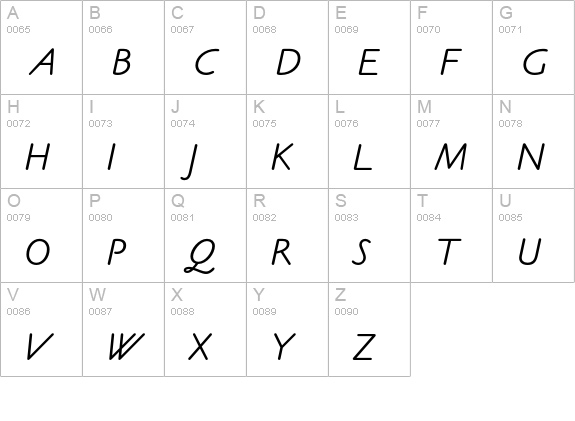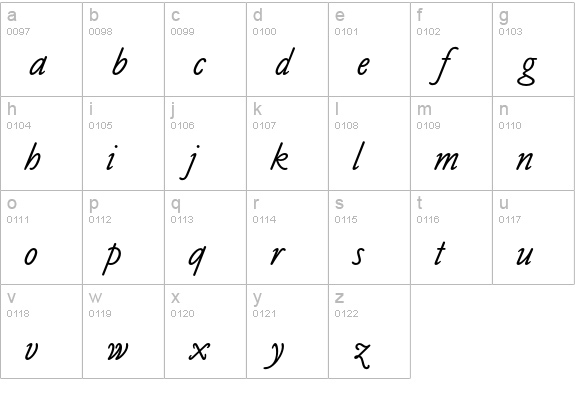
OPTICookeSans-Italic Font Details
OPTICookeSans-Italic is a distinctive, italic variant in the OPTICookeSans typeface family \xE2\x80\x94 well suited to design and typography projects.
OPTICookeSans-Italic is a modern and sleek font that exudes sophistication and elegance. The italicized style adds a touch of flair and sophistication to any design project, making it perfect for branding, advertisements, or editorial content. The smooth curves and clean lines of this font make it both versatile and eye-catching. What makes OPTICookeSans-Italic even more appealing is that it is available for free download at FontsMarket.com. This means that you can easily access this stylish font without any cost, making it a valuable addition to your font collection. Whether you are a designer looking to add a touch of class to your work or a business owner wanting to elevate your brand, OPTICookeSans-Italic is the perfect choice for your next project. Download it for free today and see the difference it can make in your designs!